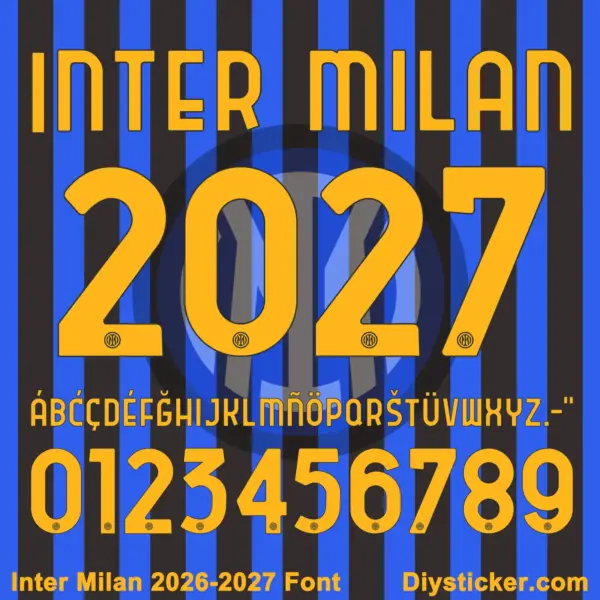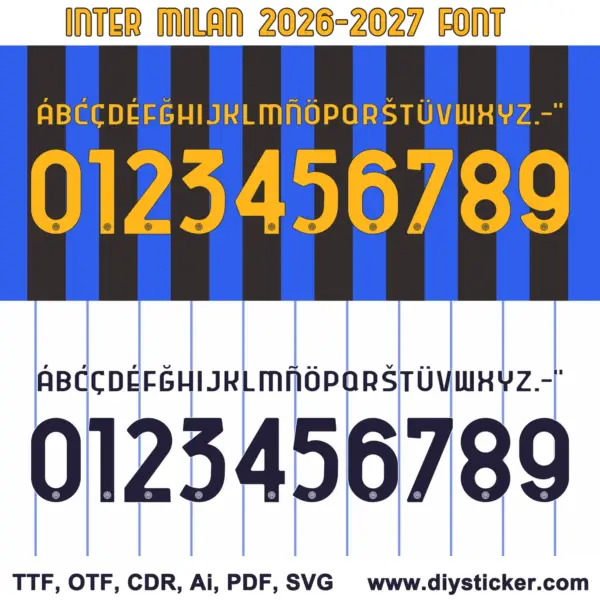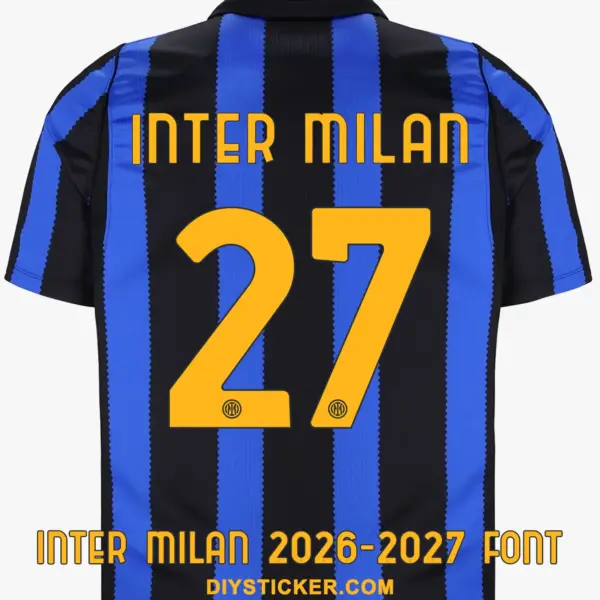
Bring authentic Nerazzurri championship style to your apparel production with the official Inter Milan 2026-2027 font download! Designed for custom jersey printing shops, vinyl plotters, and sports kit collectors, this typography collection features the official match-day cup and Champions League numbering set. Featuring tall, rounded condensed letterforms and numeric glyphs with the official Inter Milan crest embedded at the base of every digit, it is the premier custom jersey printing font Inter Milan solution for heat press transfers, DTF printing, and vinyl decal cutting.
Complete uppercase alphabet, Inter Milan jersey numbers vector, and international diacritics.
Elevate Your Kit Customization with the Inter Milan 2026-2027 Font
Upgrade your sportswear design assets with the official 2026-2027 kit font for Inter Milan! Crafted for high-precision kit decoration, this digital package delivers an authentic Inter Milan 2026-2027 font download engineered to match official kit printing standards. The typography features tall, modern condensed letters (INTER MILAN) and smooth, rounded squad numbers accented with the official Inter Milan crest embedded at the bottom.
Comprehensive Character Mapping
A-Z Uppercase Alphabet: High-legibility condensed character set engineered for player nameplates.
0-9 Custom Squad Numbers: Smooth, bold numeric glyphs with the official Inter Milan crest embedded at the bottom (supplied as Inter Milan jersey numbers vector).
Special Accents & Diacritics: Complete set of international accents (
Á,Ć,Ç,É,Ğ,Í,Ñ,Ö,Š,Ü,Ž,.,-,") to accurately render player nameplates across global squad rosters.